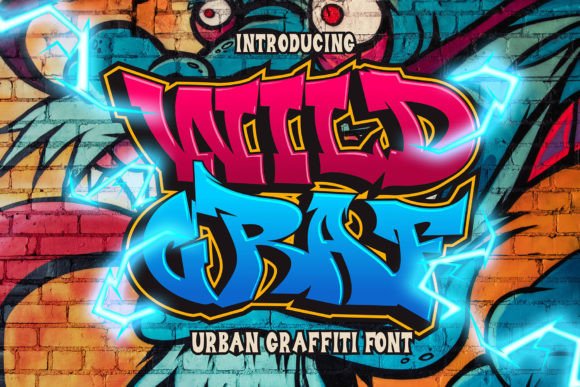
Step into the world of urban edginess with Wild Graf, the display font that's ready to unleash your creative beast. Inspired by the raw energy of graffiti art, Wild Graf is the perfect font for those who dare to break the mold and make a statement.
Picture this: you're designing a music poster, and you need a font that captures the intensity of the music. Wild Graf jumps into the spotlight, its bold letters screaming out the lyrics, demanding attention. The unique style, reminiscent of death metal and urban graffiti, adds a touch of rebellion that resonates with your audience, leaving them headbanging for more.
Or perhaps you're working on an apparel design, a shirt that speaks to the rebellious spirit of the streets. Wild Graf steps up to the challenge, its edgy strokes adding a layer of attitude that turns heads wherever you go. The font's urban flair effortlessly blends with the streetwear aesthetic, making it the perfect choice for those who want to make a fashion statement.
But Wild Graf isn't just limited to music and fashion. Its versatility shines through in any project that demands a touch of boldness. Whether you're creating flyers, posters, or social media graphics, Wild Graf has the power to transform your designs into eye-catching masterpieces.
With Wild Graf, you're not just downloading a font; you're embracing an attitude, a way of life. It's the font that says, "I'm not afraid to stand out, to make a statement, to leave my mark on the world." So if you're ready to unleash your inner rebel and take your designs to the next level, Wild Graf is the font for you.